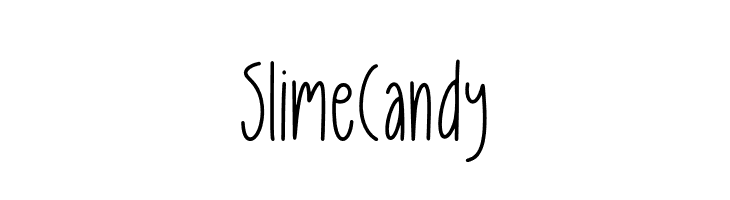
A thin, whimsical handwritten font with a playful and informal style.
A playful, handwritten font with tall, slender letterforms and slight stroke variation.